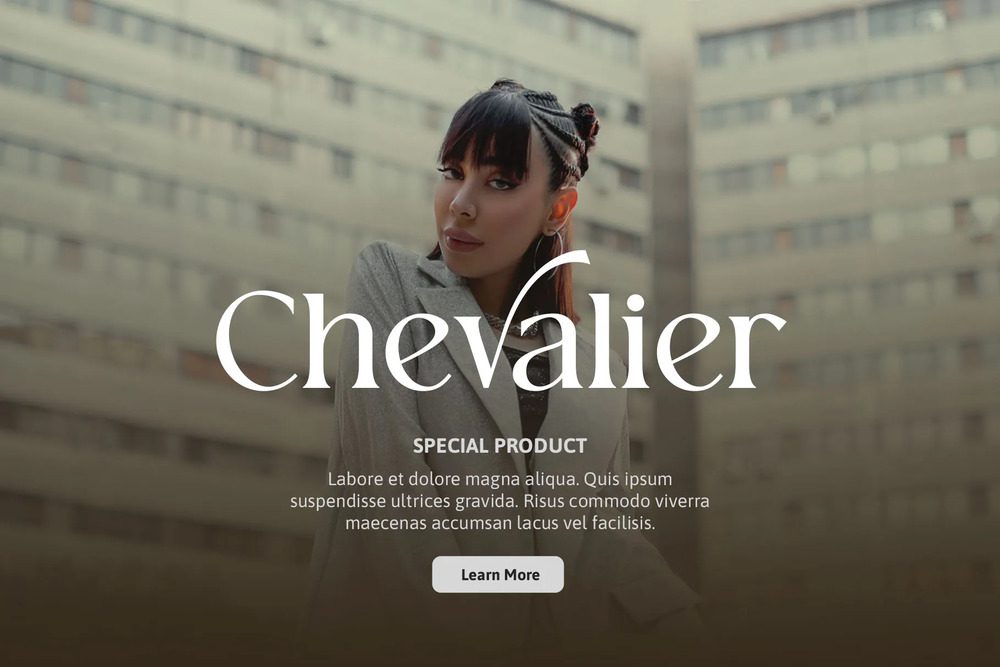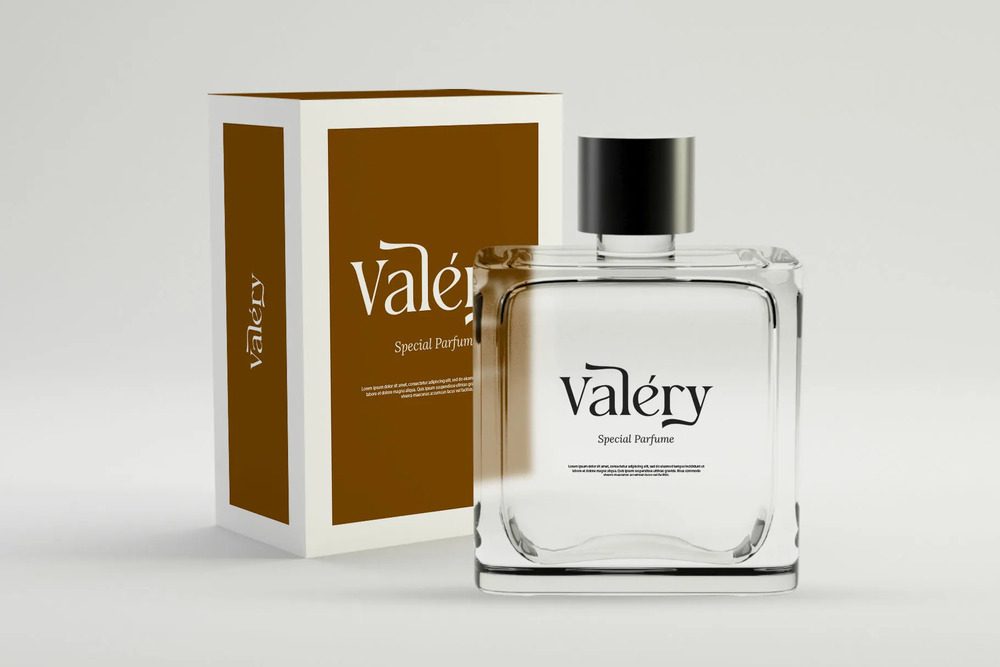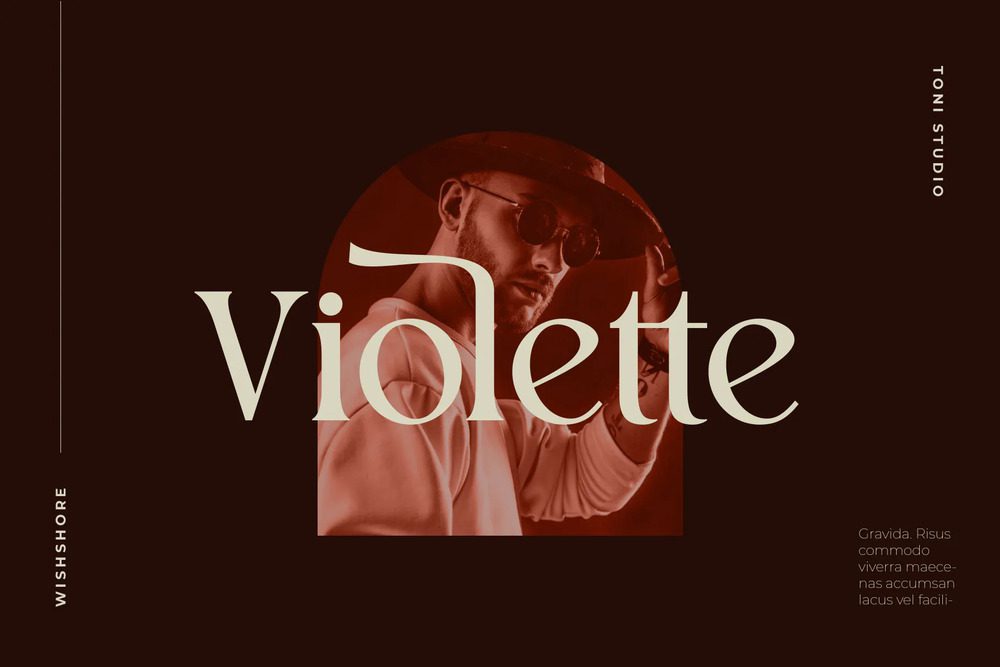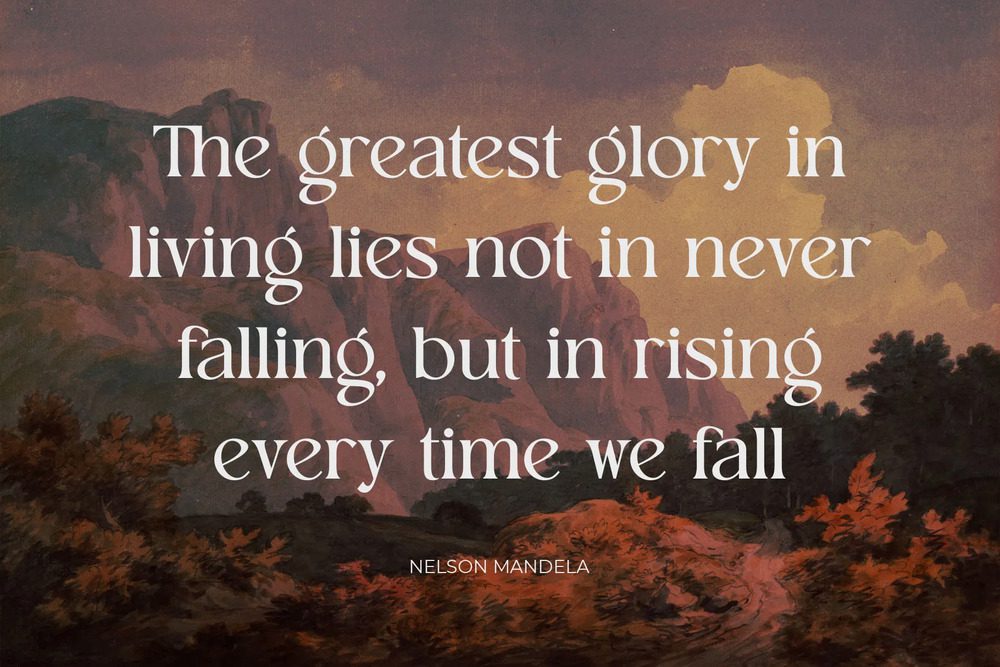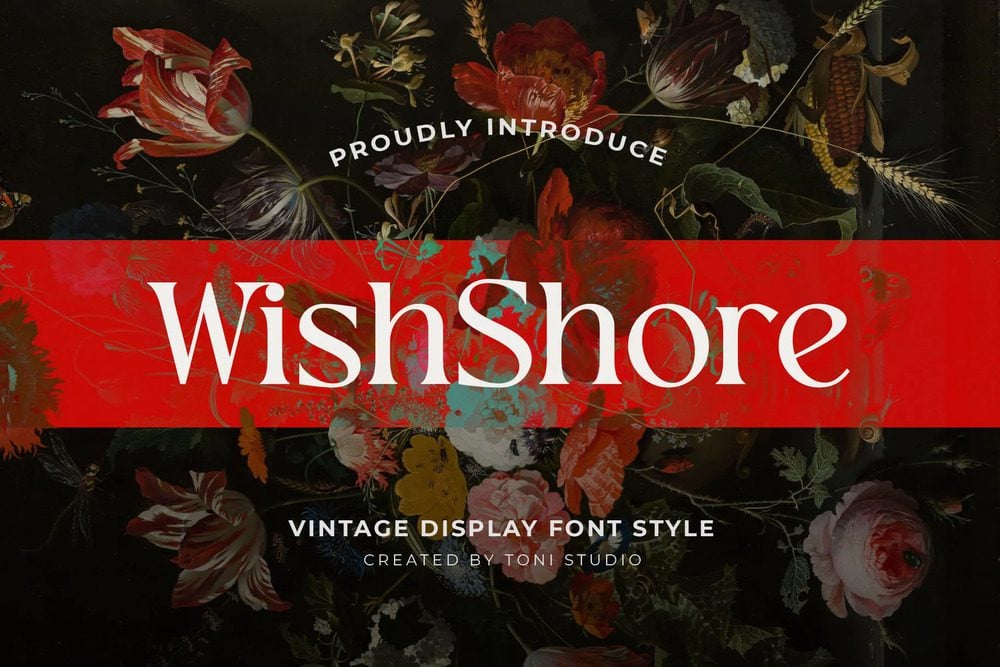
WishShore Font
WishShore serif font. WishShore is the perfect choice for adding a cultured and sophisticated look to your artwork. Inspired by famous minimalist logos perfect for your purpose of designing templates, brochures, videos, advertising branding, logos, invitations, design layouts, elegant crafts, beauty designs, packaging designs or book cover craftsmanship and many more.